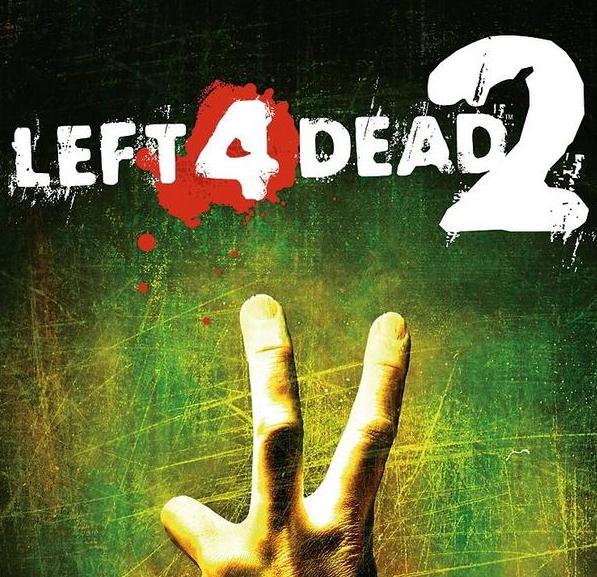
Left 4 Dead 2 Font
Fonts in UseLeft 4 Dead 2 is a cooperative first-person shooter video game where players battle against hordes of infected zombies while trying to reach a safe zone. The game features a variety of different campaigns, game modes, and playable characters, making for a highly replayable and intense gaming experience.
The title of the game on the box art utilizes a distressed font style with an eroded effect that closely resembles the Future Rot font created by Footnote Fonts. You can download the font for free from the Fonts Used Section.